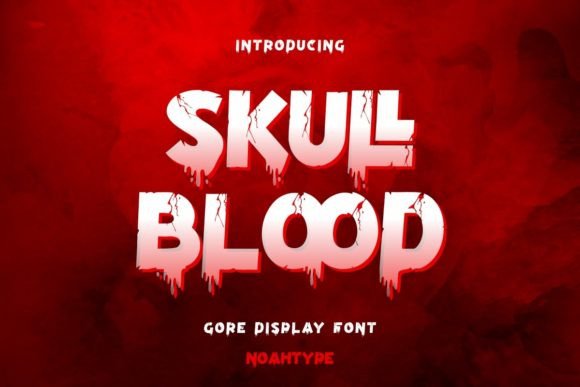
Unleash your creativity and embrace the dark allure of Skull Blood Font, a captivating display font that exudes horror and scares. Crafted by the visionary NoahType, this font is a masterpiece of digital artistry, designed to infuse your designs with an instant aura of awe and intrigue.
With its cracks and drops effect meticulously rendered on each letter, Skull Blood Font transcends the boundaries of ordinary typefaces, adding a touch of the macabre to your projects. Imagine the impact it will have on your posters, flyers, or social media graphics – your words will drip with eerie elegance, demanding attention and inciting goosebumps.
This font is not just a collection of characters; it's a gateway to a world of limitless possibilities. It's perfect for conjuring the spine-chilling atmosphere of a horror movie, adding a touch of spookiness to a costume party invitation, or creating an otherworldly ambiance at a festival. Unleash your inner artist and let Skull Blood Font paint your creative visions into reality.
Immerse yourself in the world of publishing and print, where Skull Blood Font will add an unforgettable touch to your books, magazines, and brochures. Let your words dance on the page, imbued with an eerie charm that captivates readers from the very first glance.